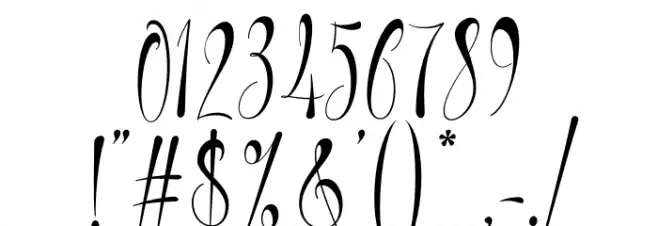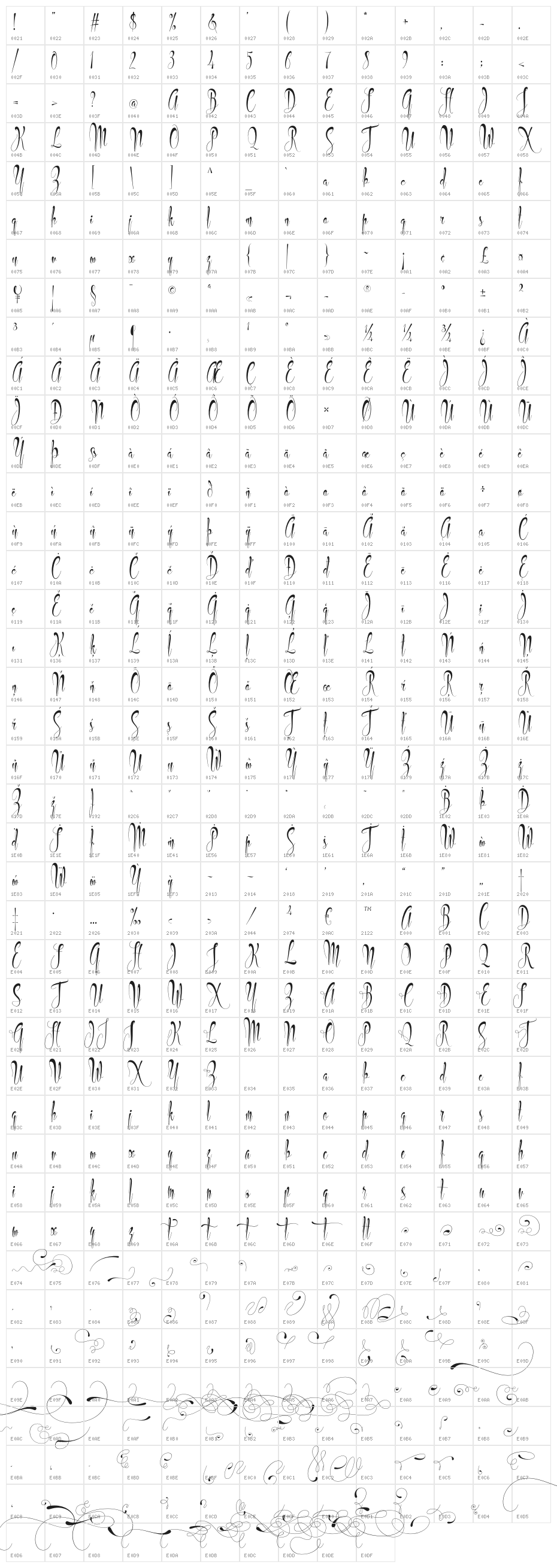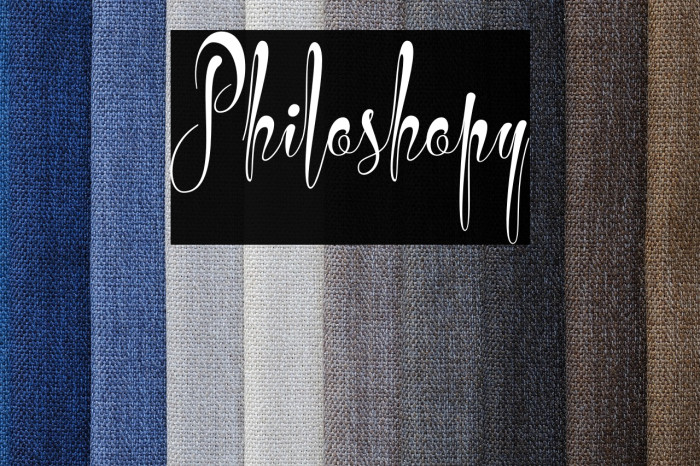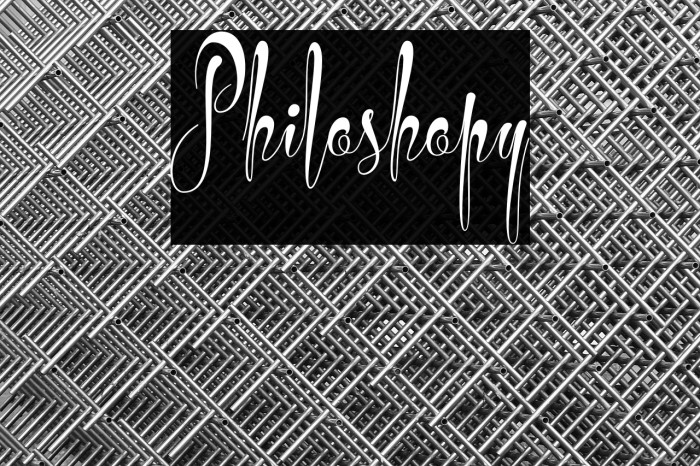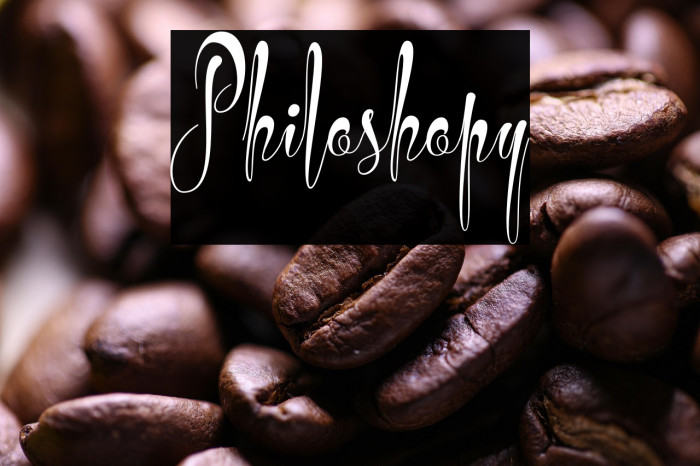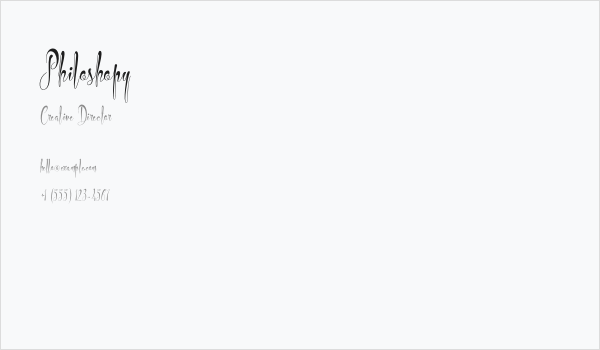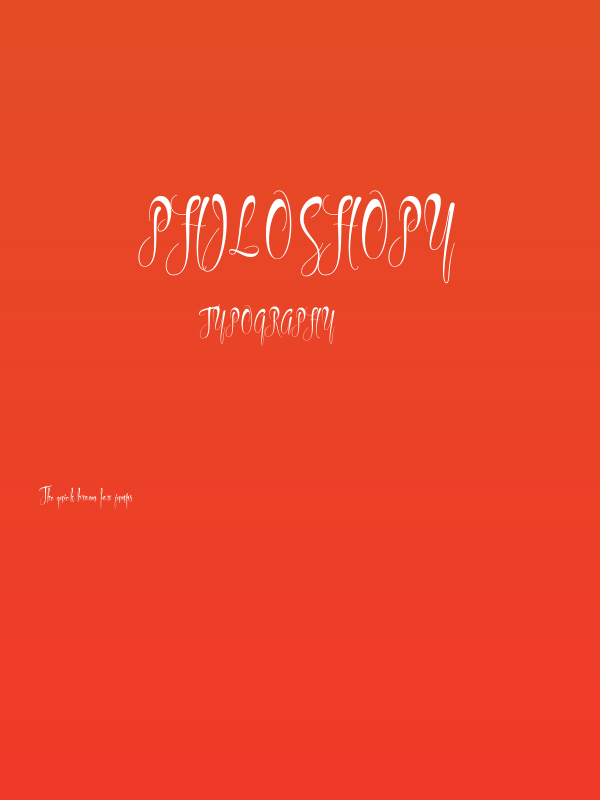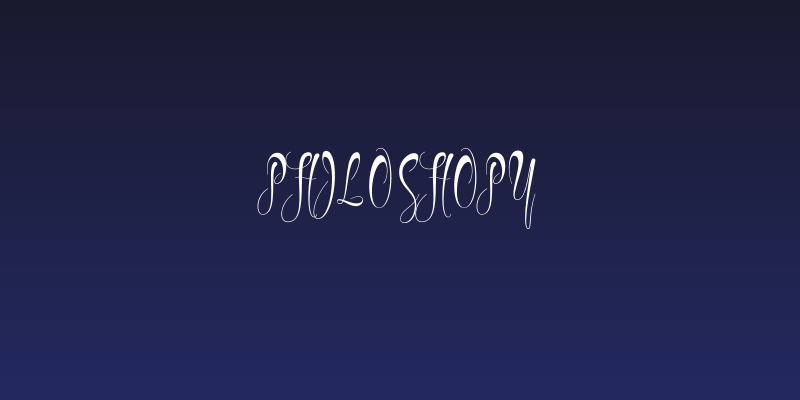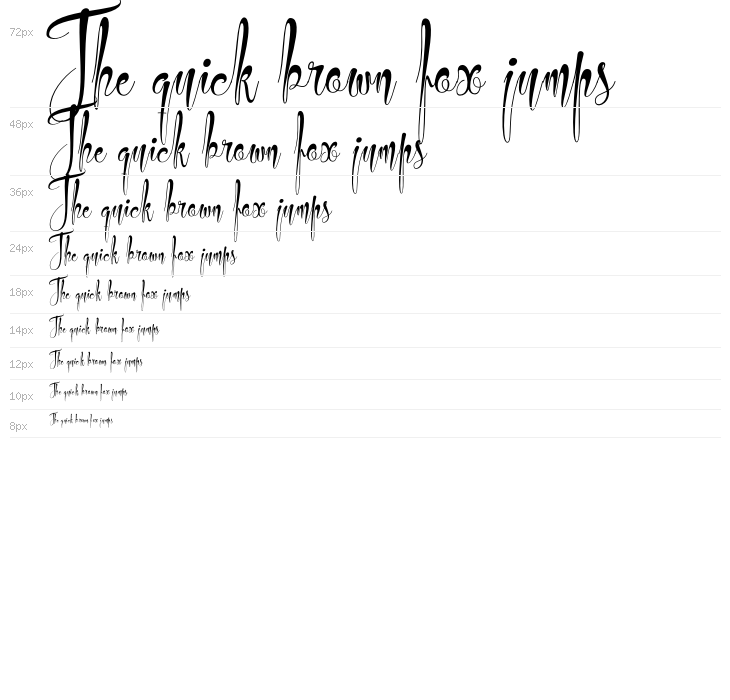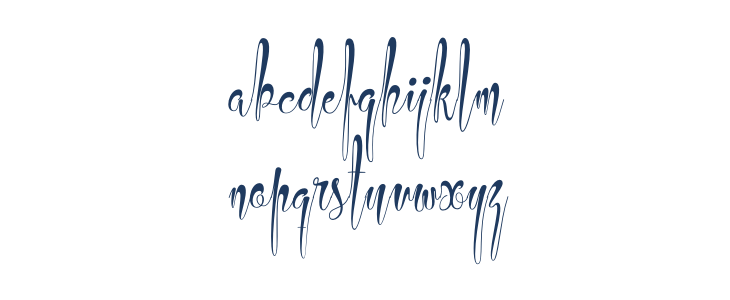
Philoshopy Font
Philoshopy Description
This elegant and flowing script font features a sophisticated design with high contrast between thick and thin strokes. The uppercase letters are characterized by their tall, slender forms and intricate swashes, giving them a sense of movement and grace. The lowercase letters maintain a consistent style, with elongated ascenders and descenders that add to the font's overall fluidity. The numerals are designed with a similar flair, ensuring they complement the letters seamlessly. Special characters are adorned with decorative elements, enhancing the font's ornate appearance. This font is perfect for projects that require a touch of elegance and sophistication.
| Use Case | Logos, Invitations, Headlines |
| Proposed Projects | Ideal for wedding invitations, luxury branding, and elegant stationery. |